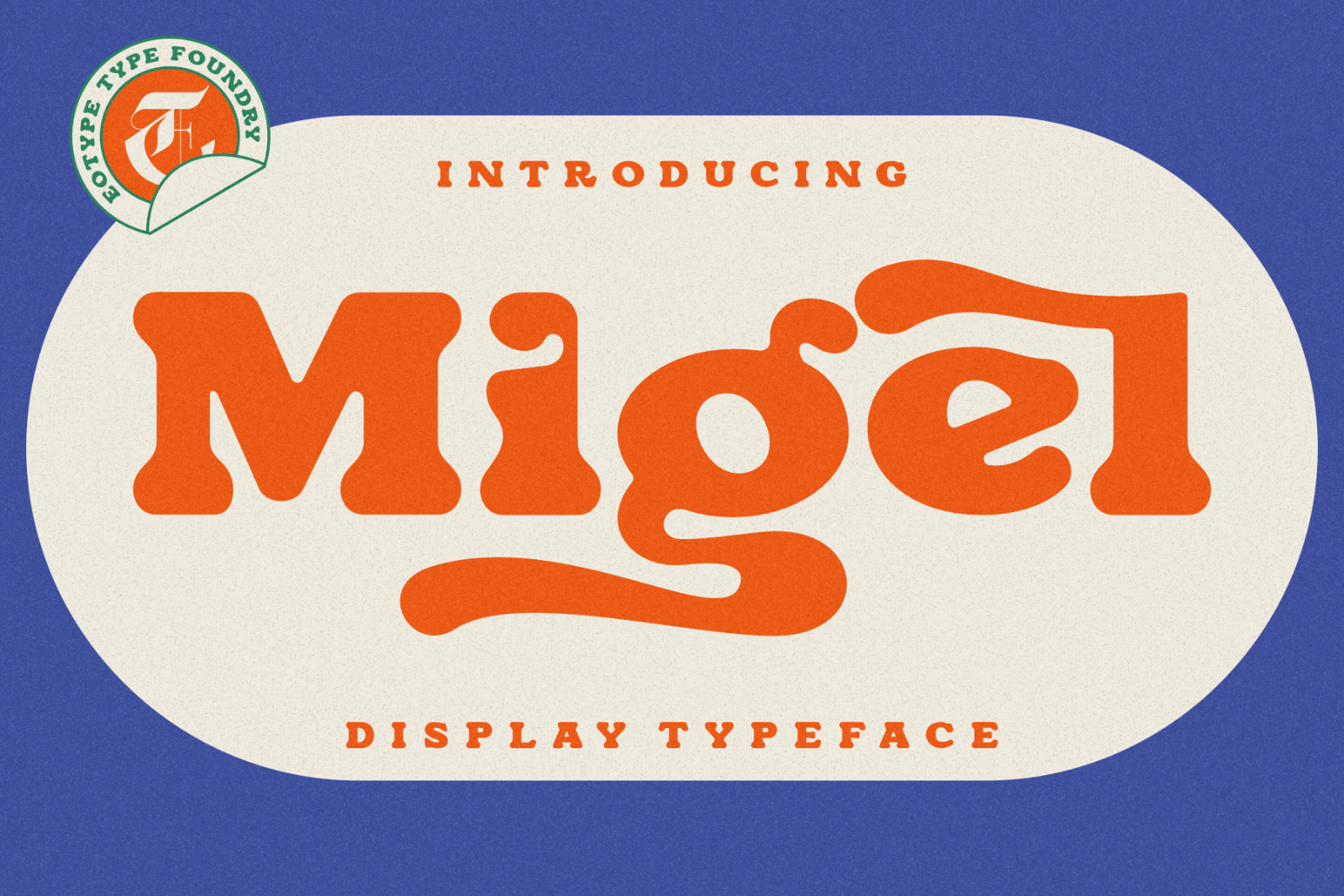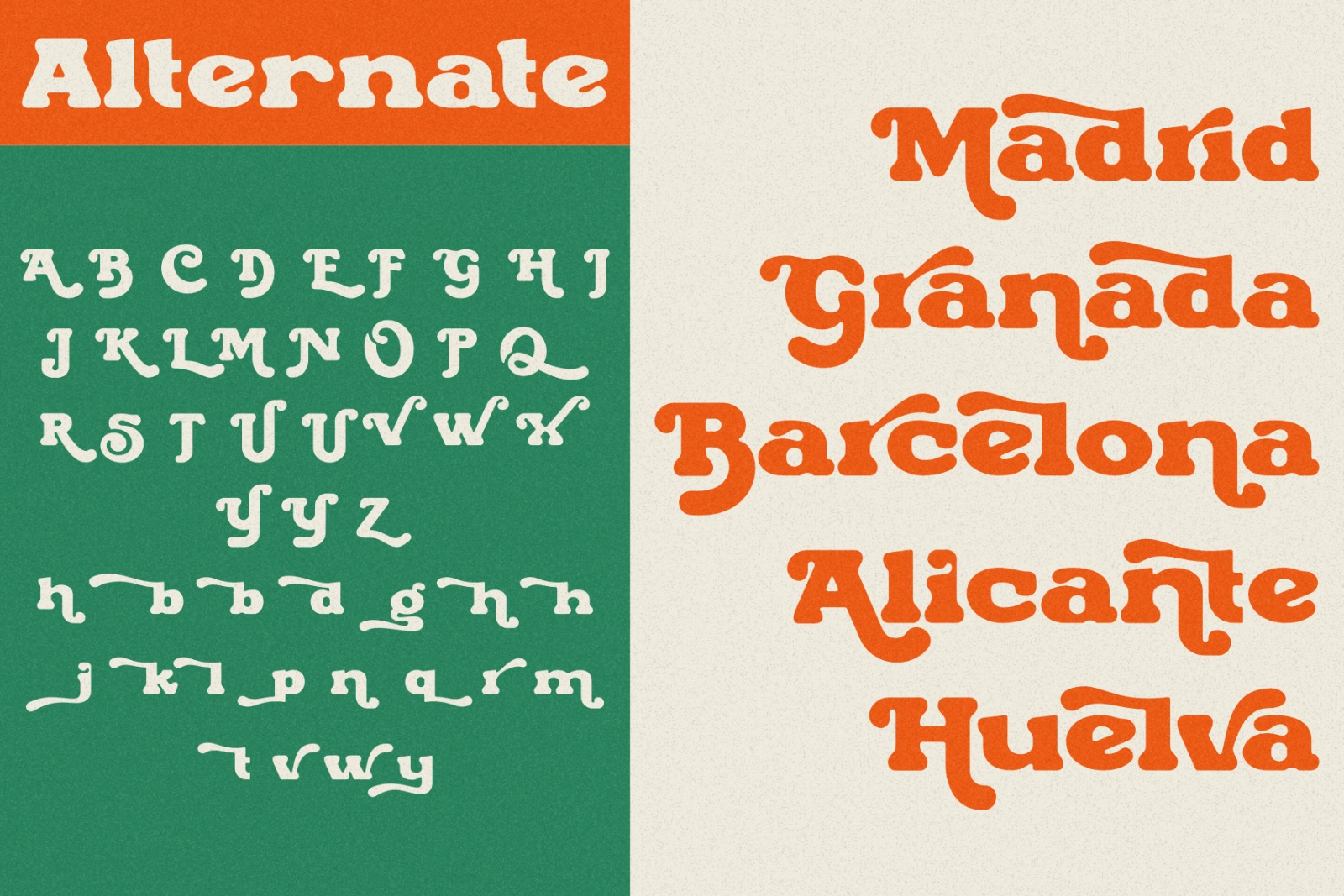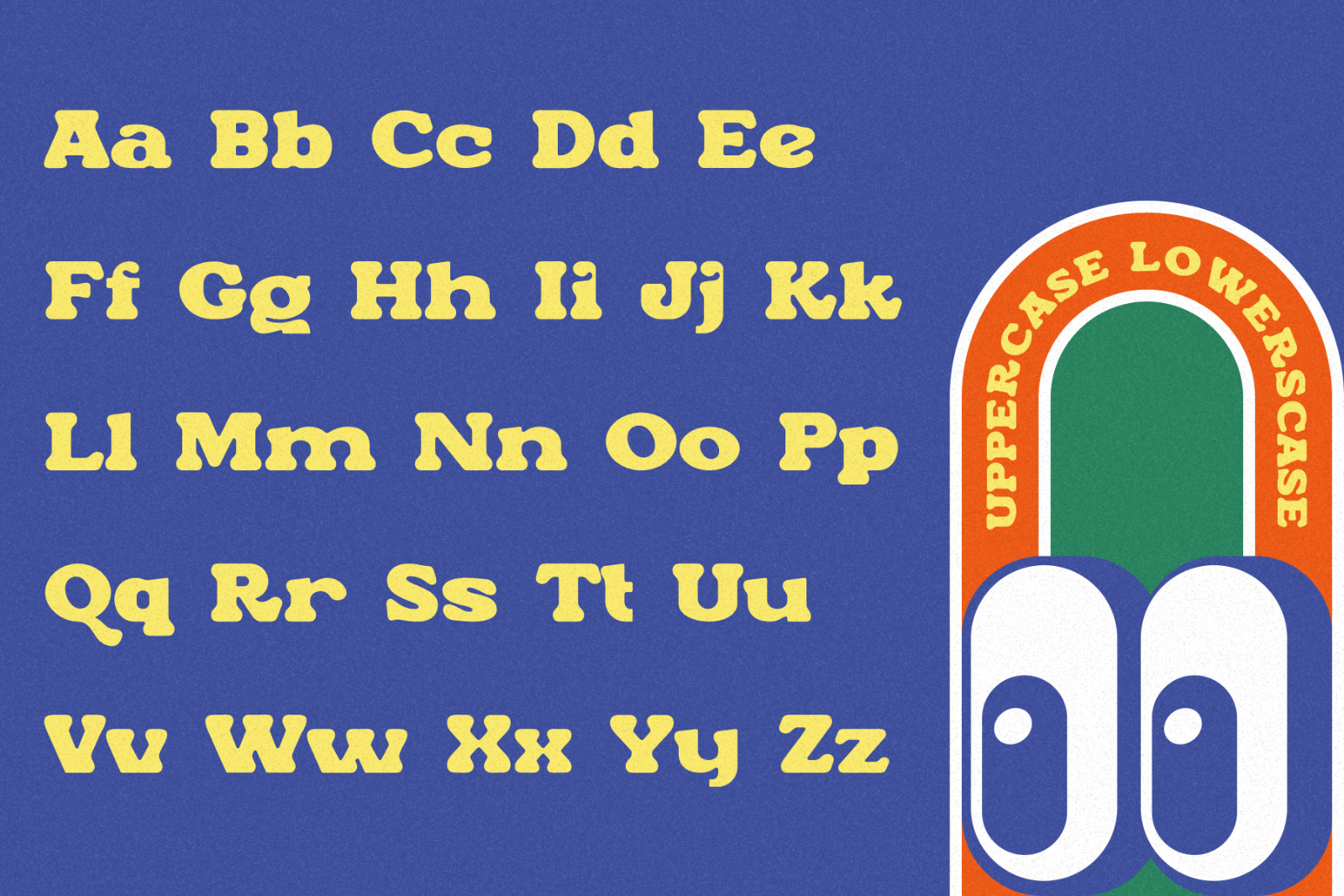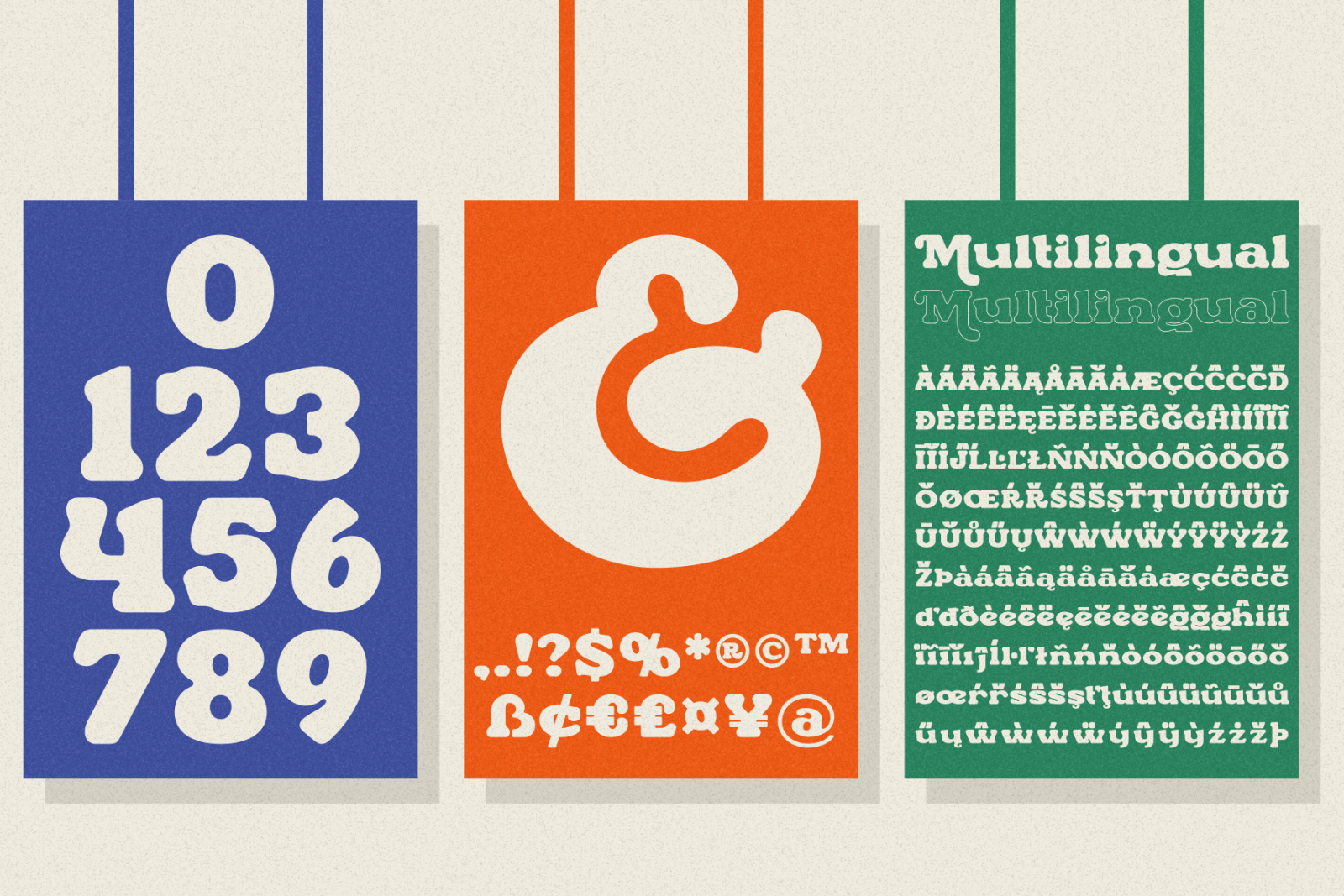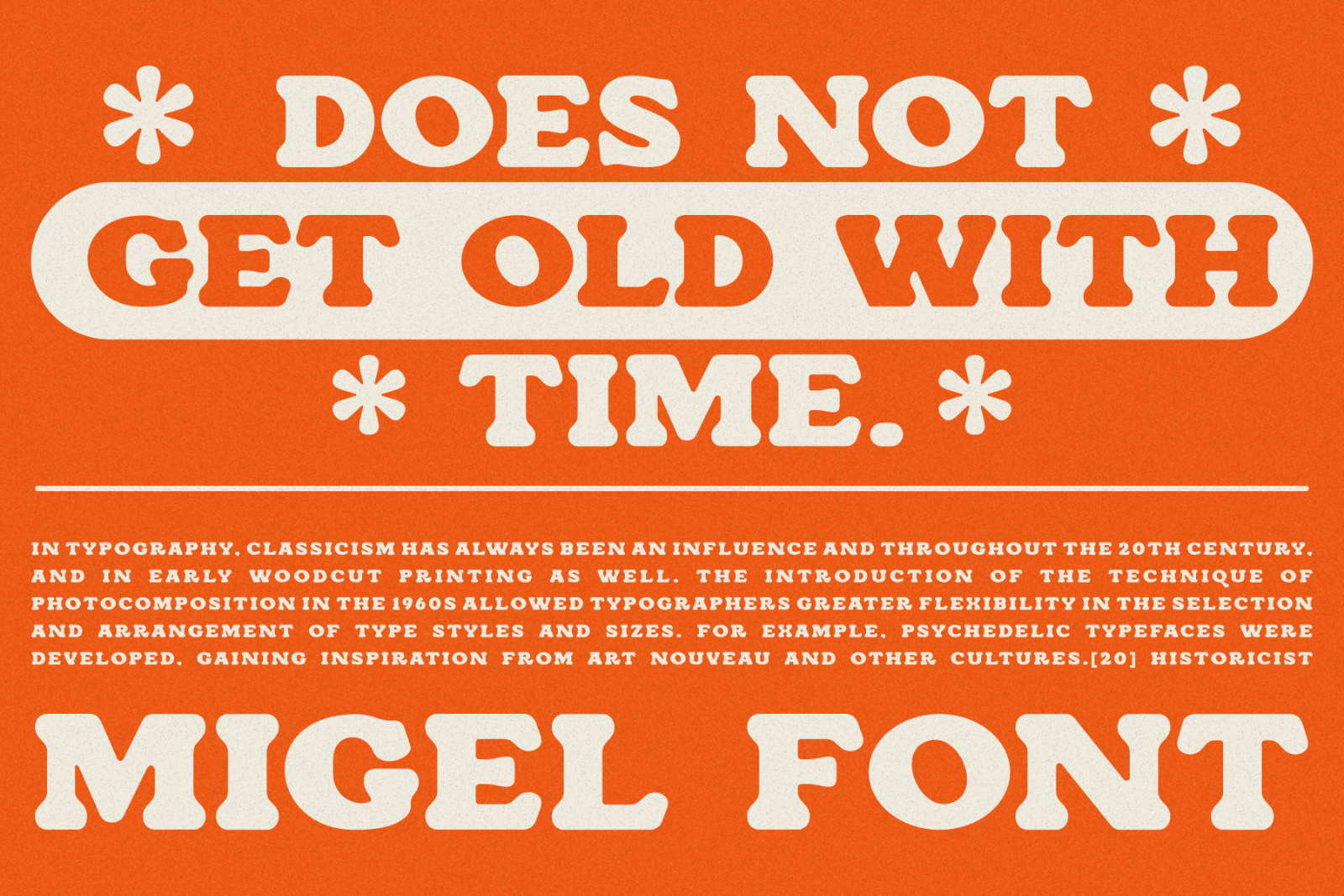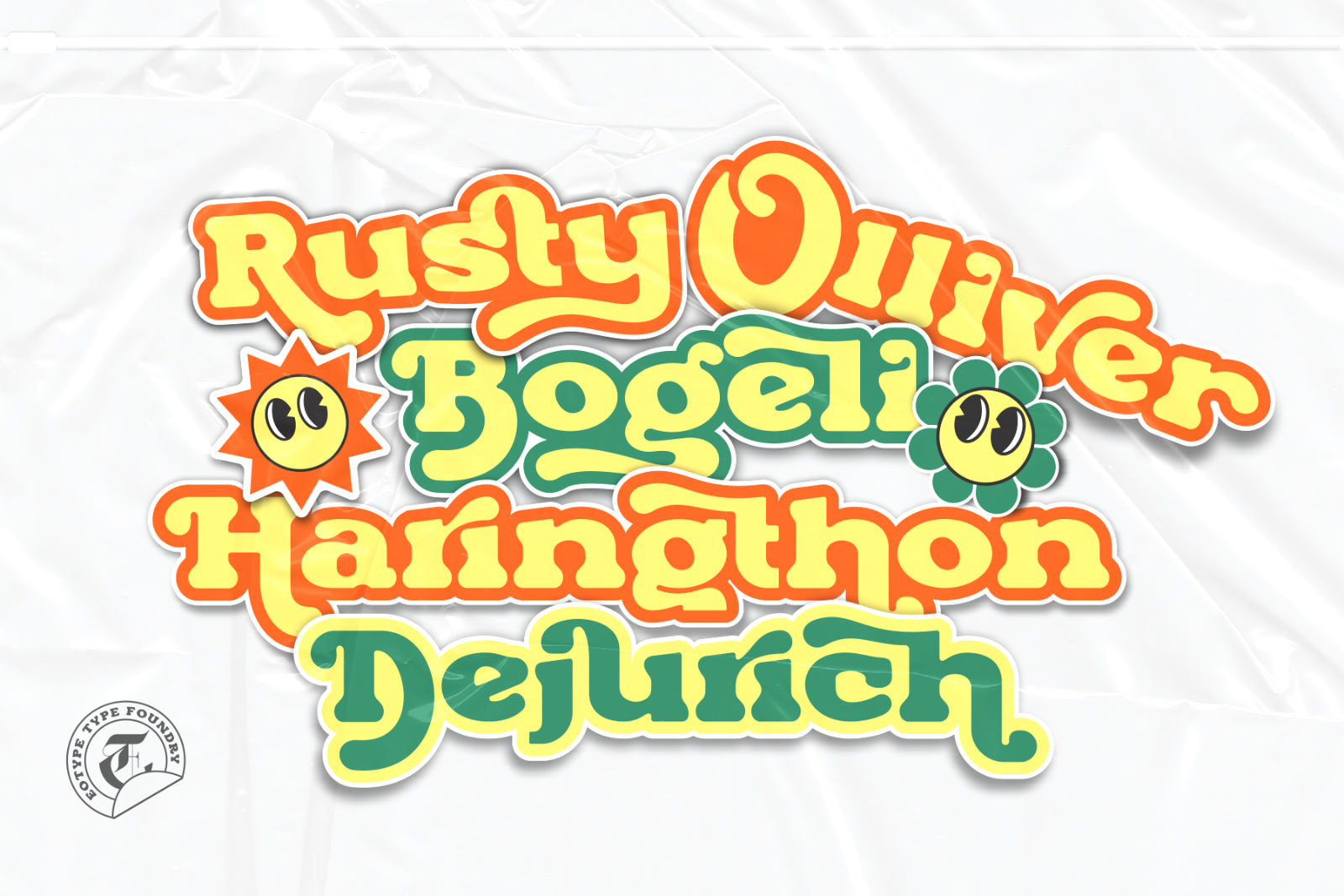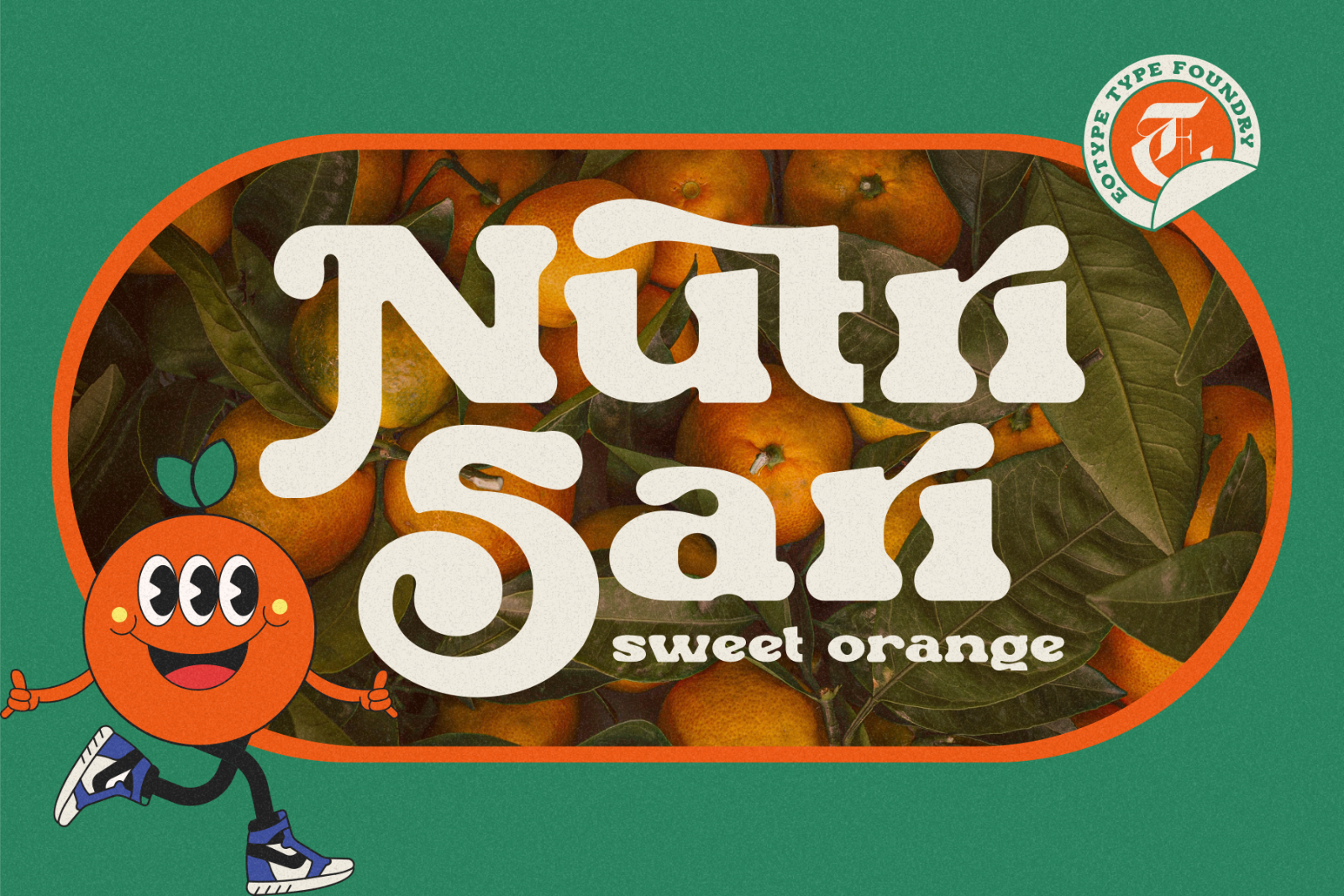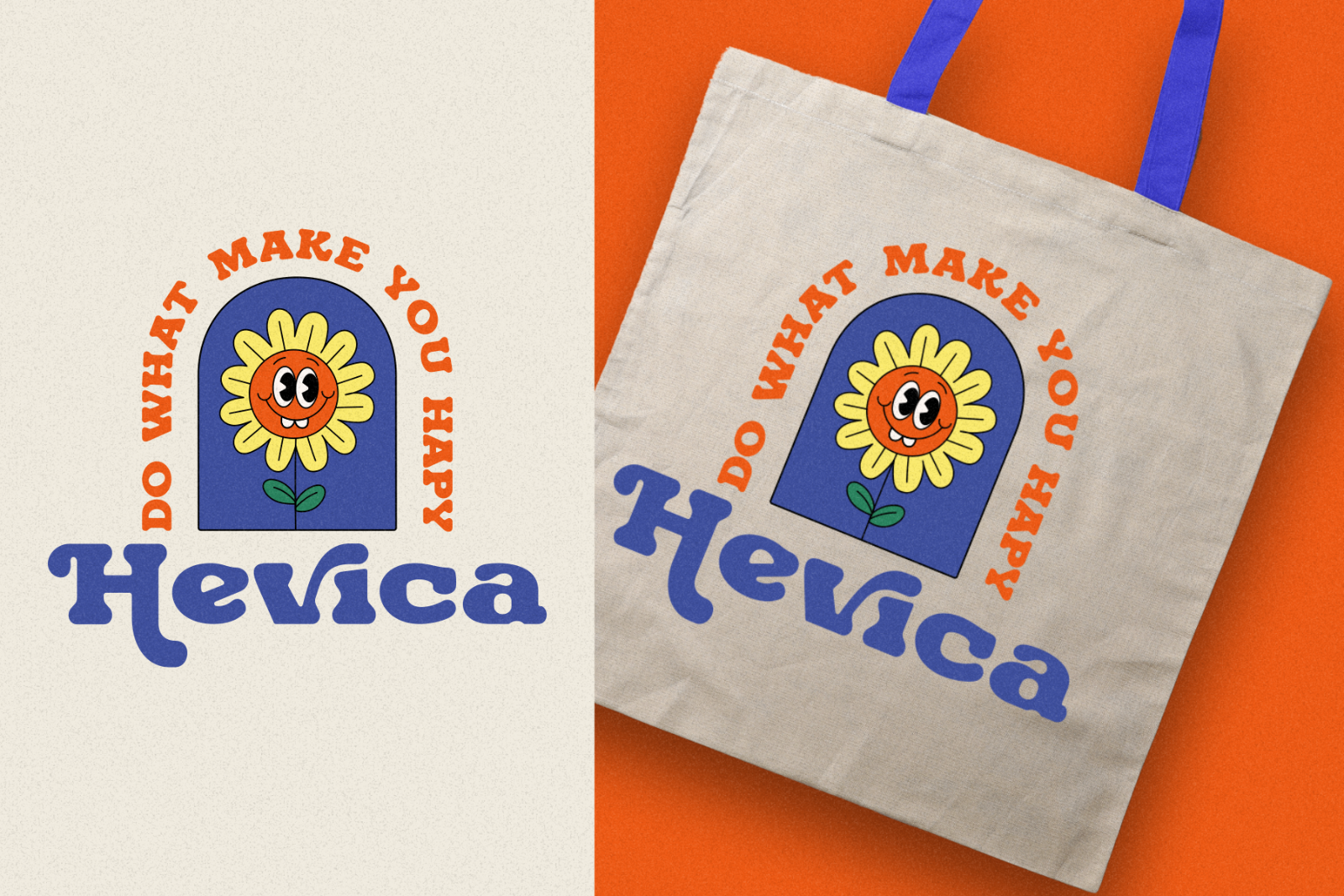
Migel is a thick display typeface that has rounded edge and soft characteristics. This font can give your designs a playful and friendly impression. You can use this font for retro, vintage and urban designs. This font comes with alternative style and ligature features which are suitable for various projects such as logos, product labels, posters and many more.